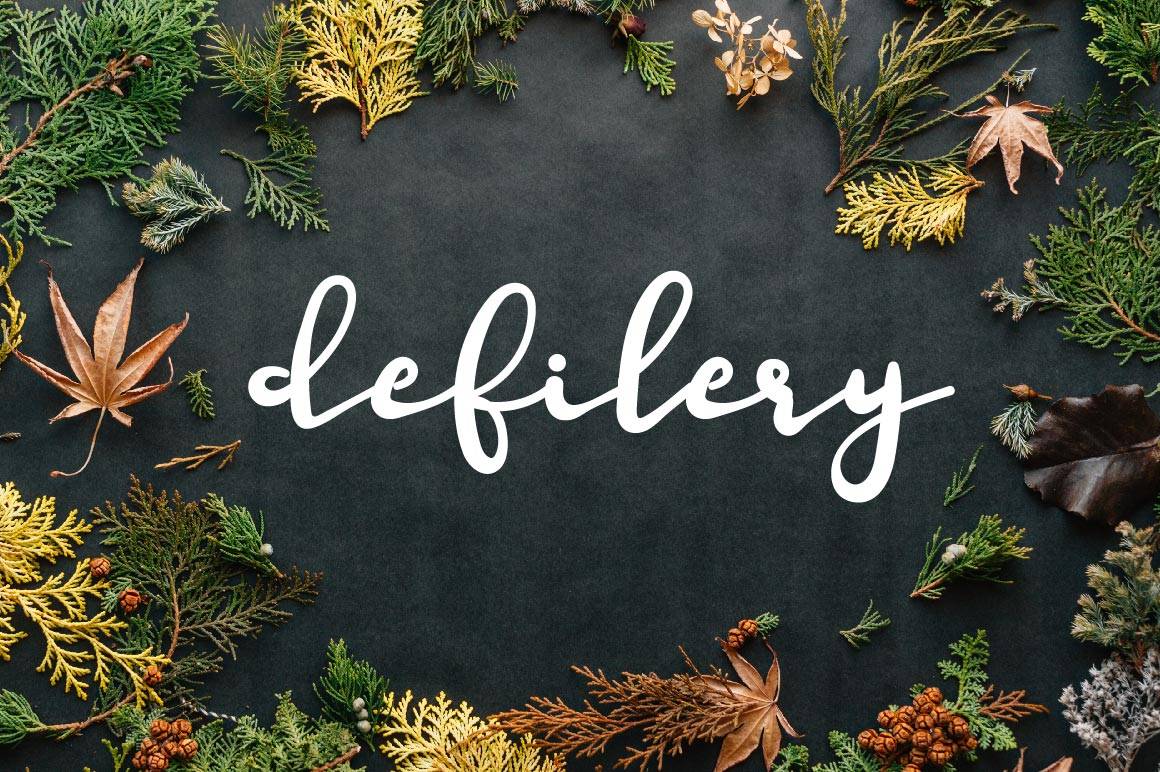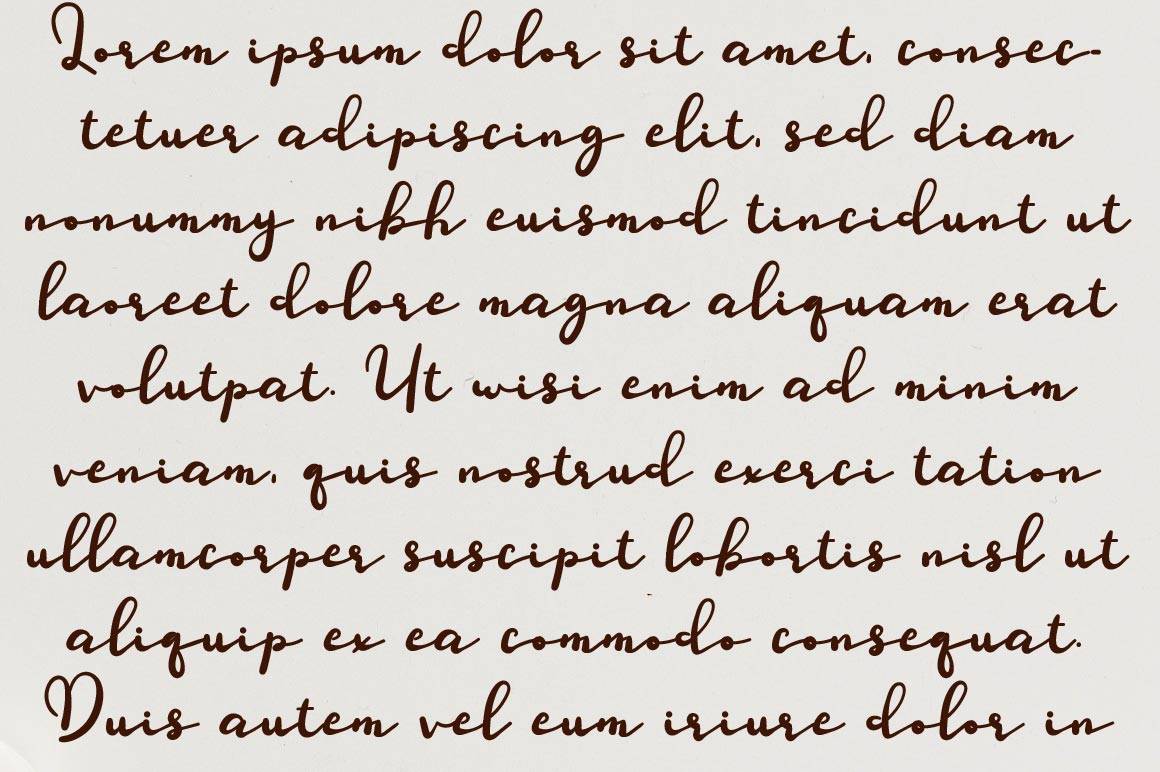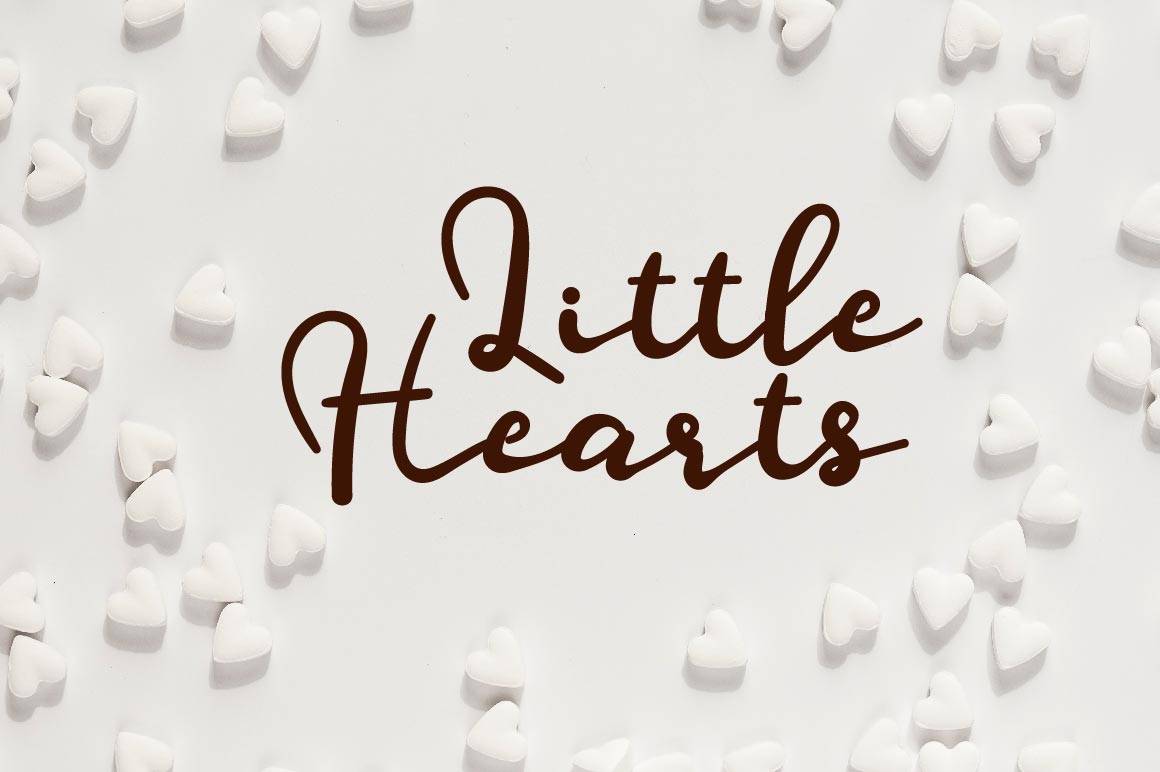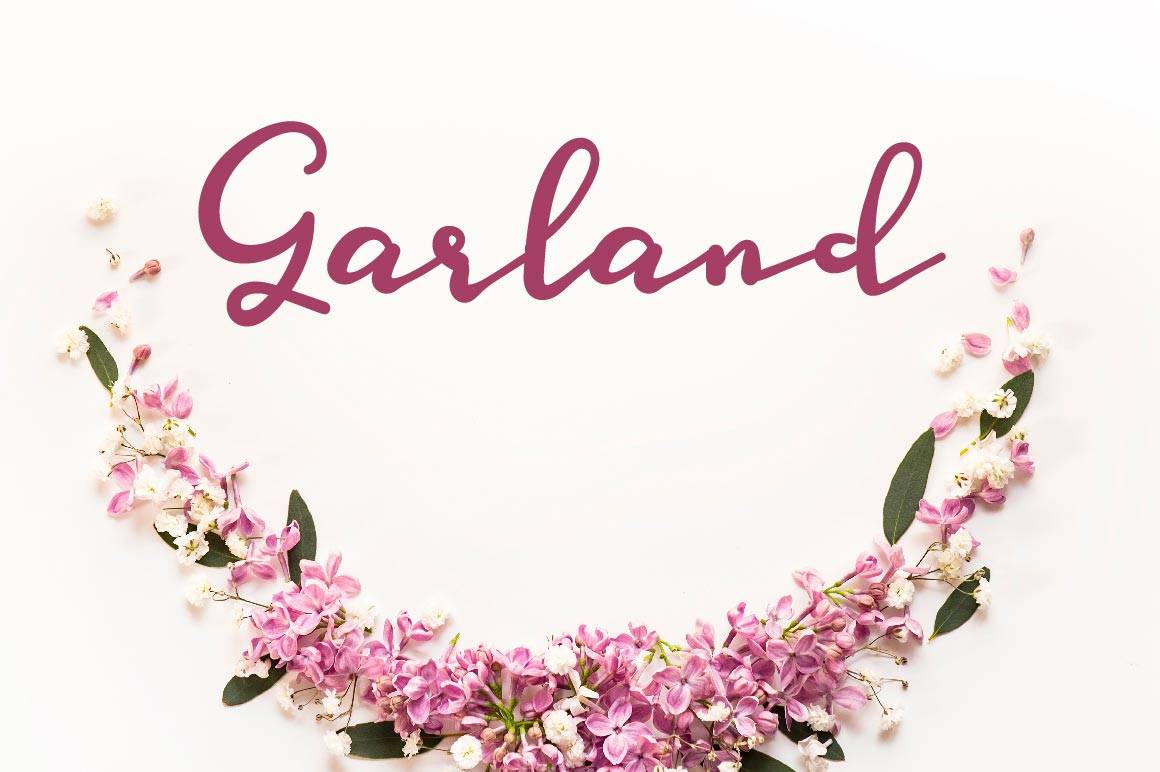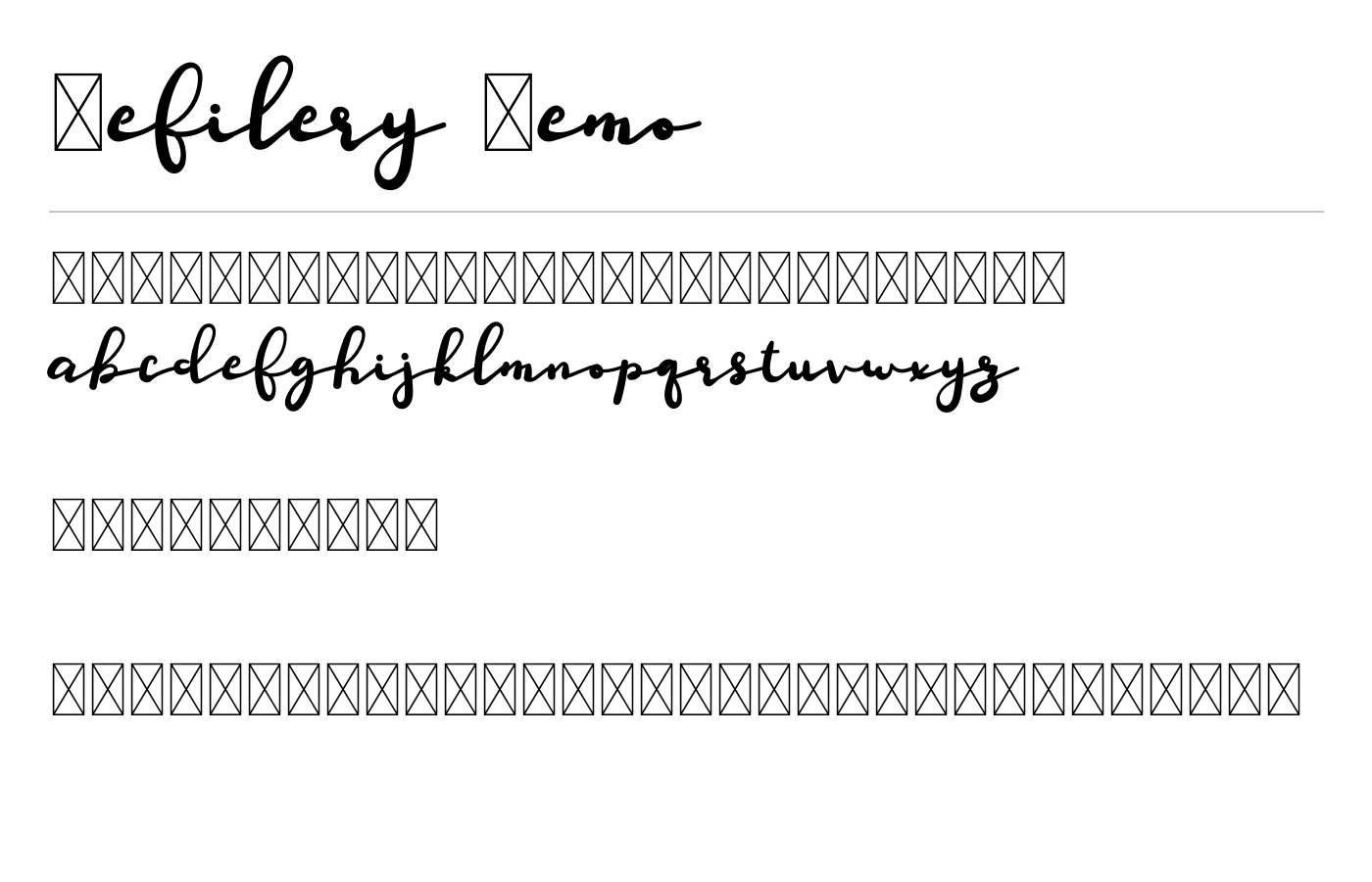
Defilery Script Font is a charming and elegant handwritten script characterized by smooth, flowing strokes and a casual yet refined style. Its medium weight and graceful, connected letters make it perfect for adding a personal, friendly touch to invitations, branding, and social media graphics. This font works beautifully in designs that aim to feel warm, approachable, and stylish without being overly formal.
Defilery Script Font
About Defilery Script Font